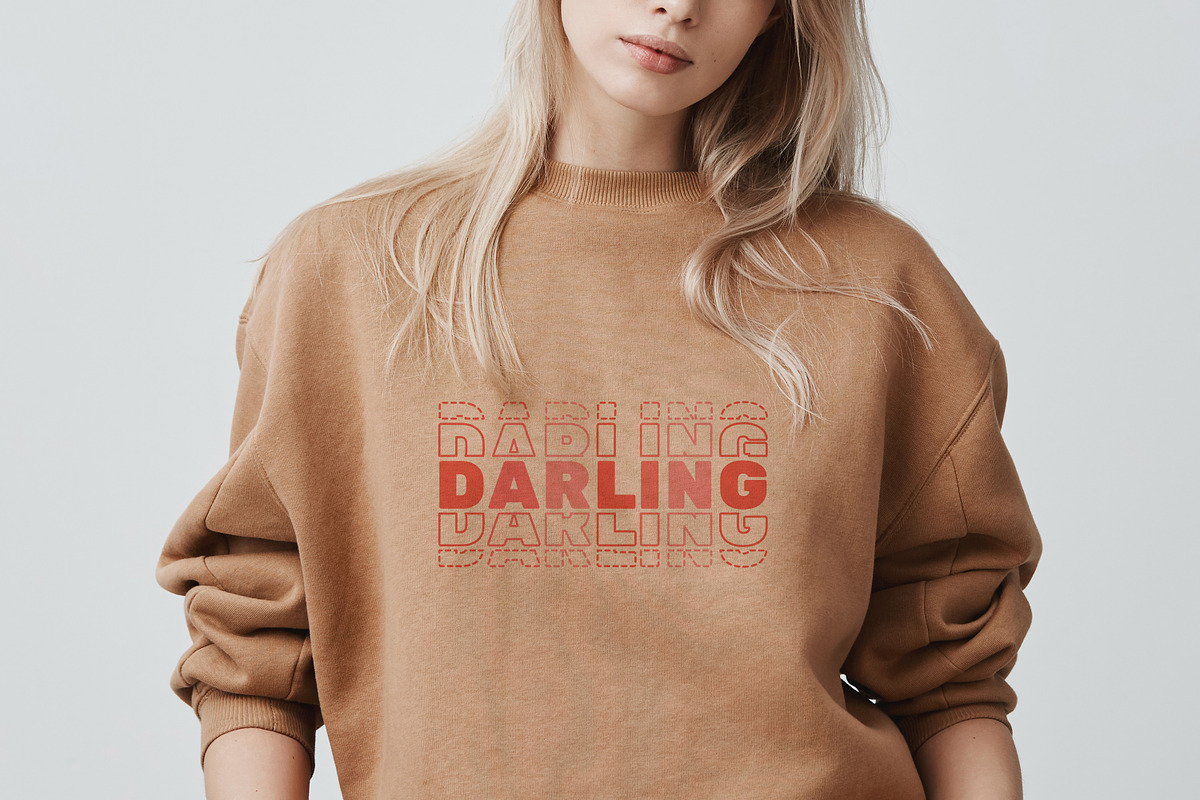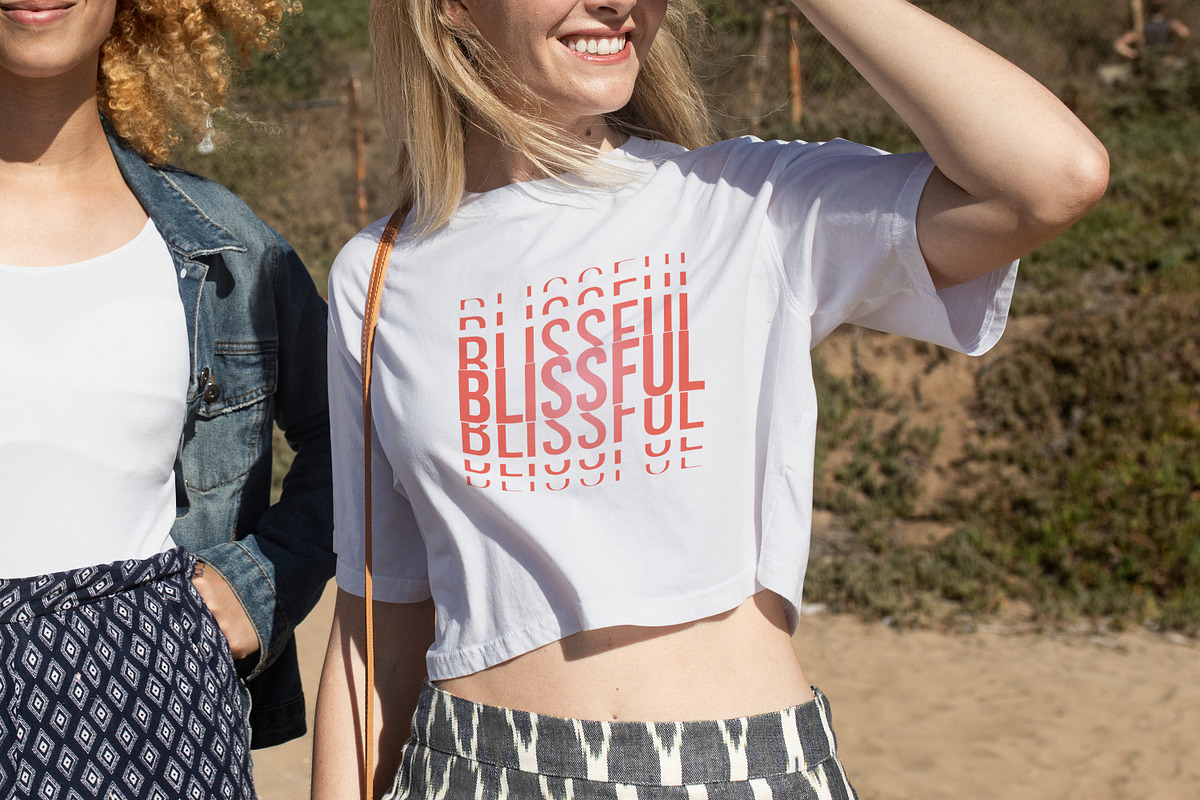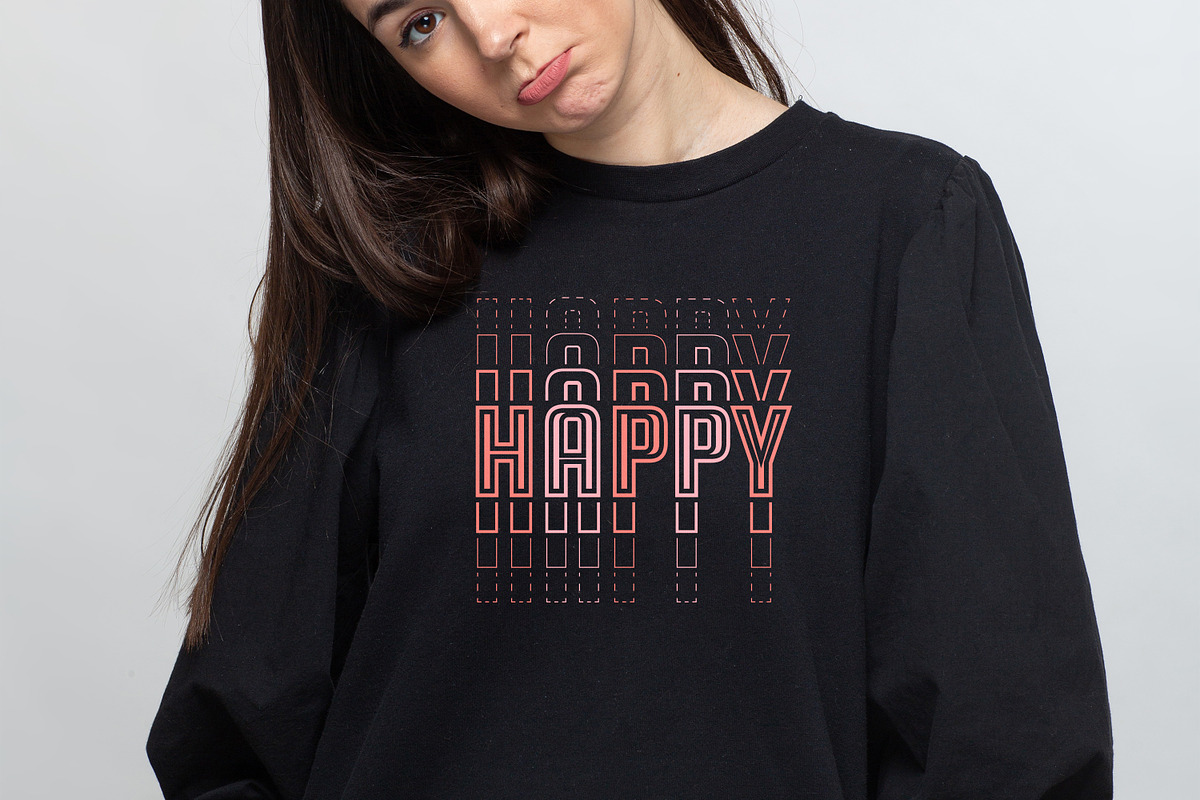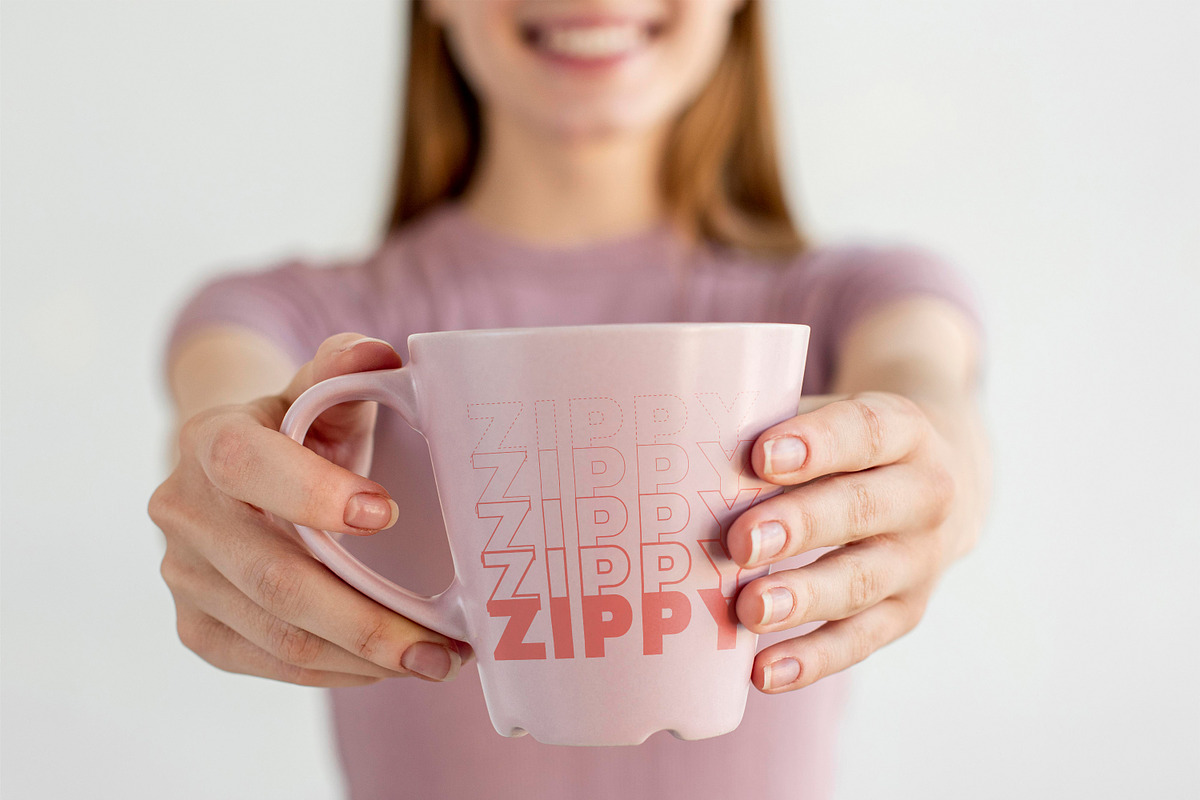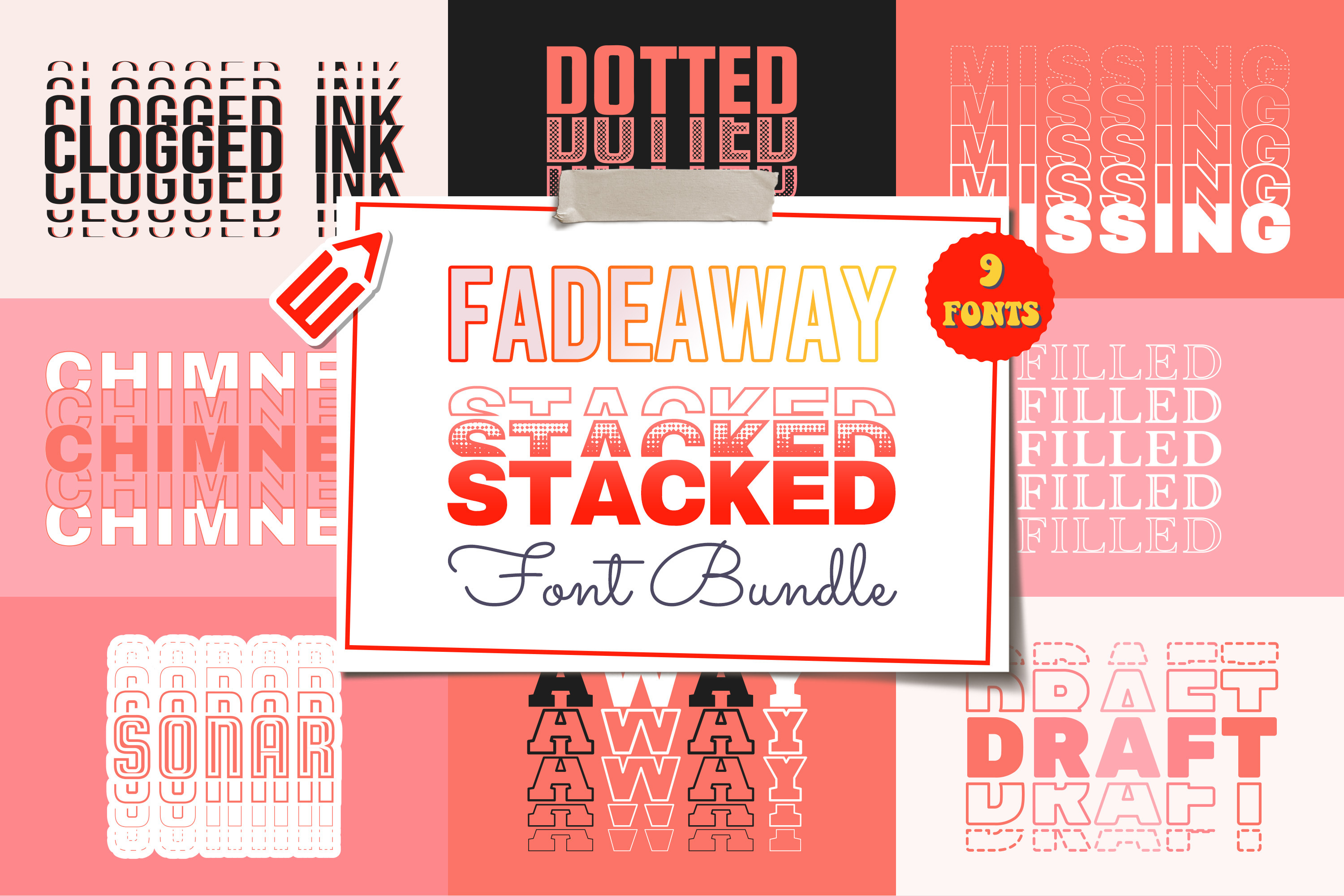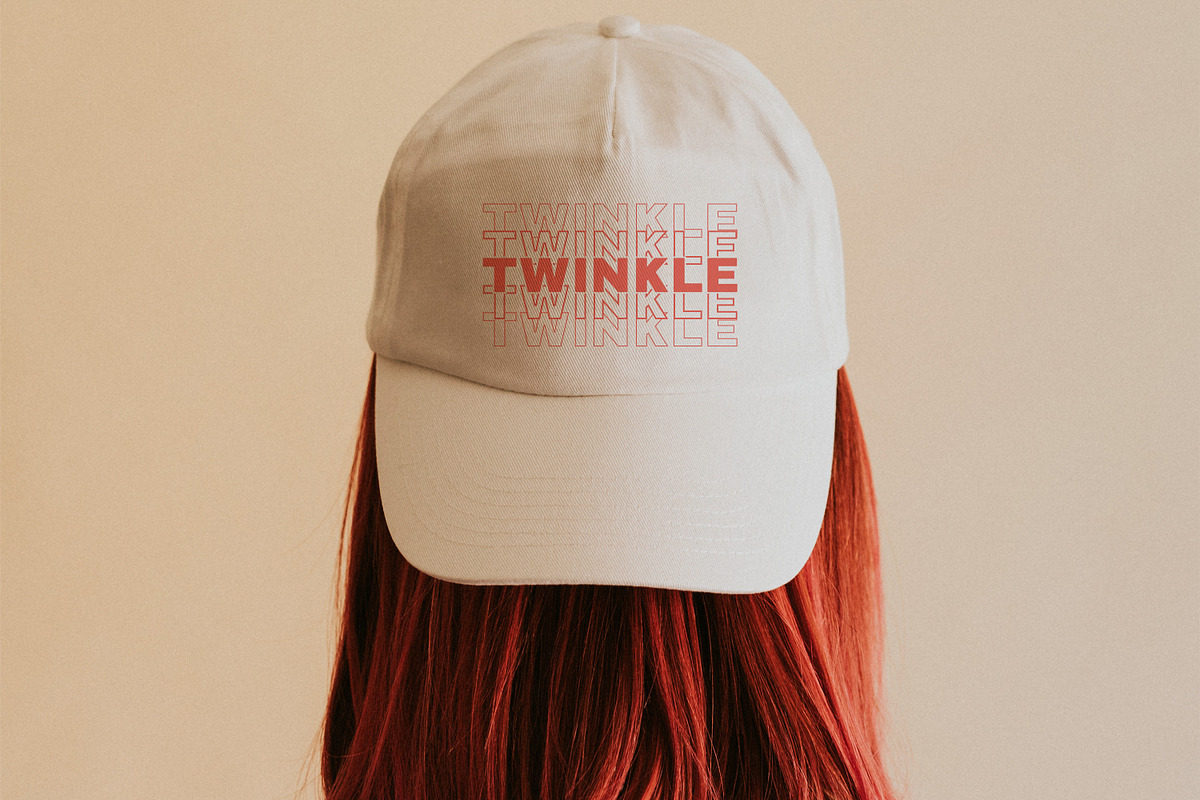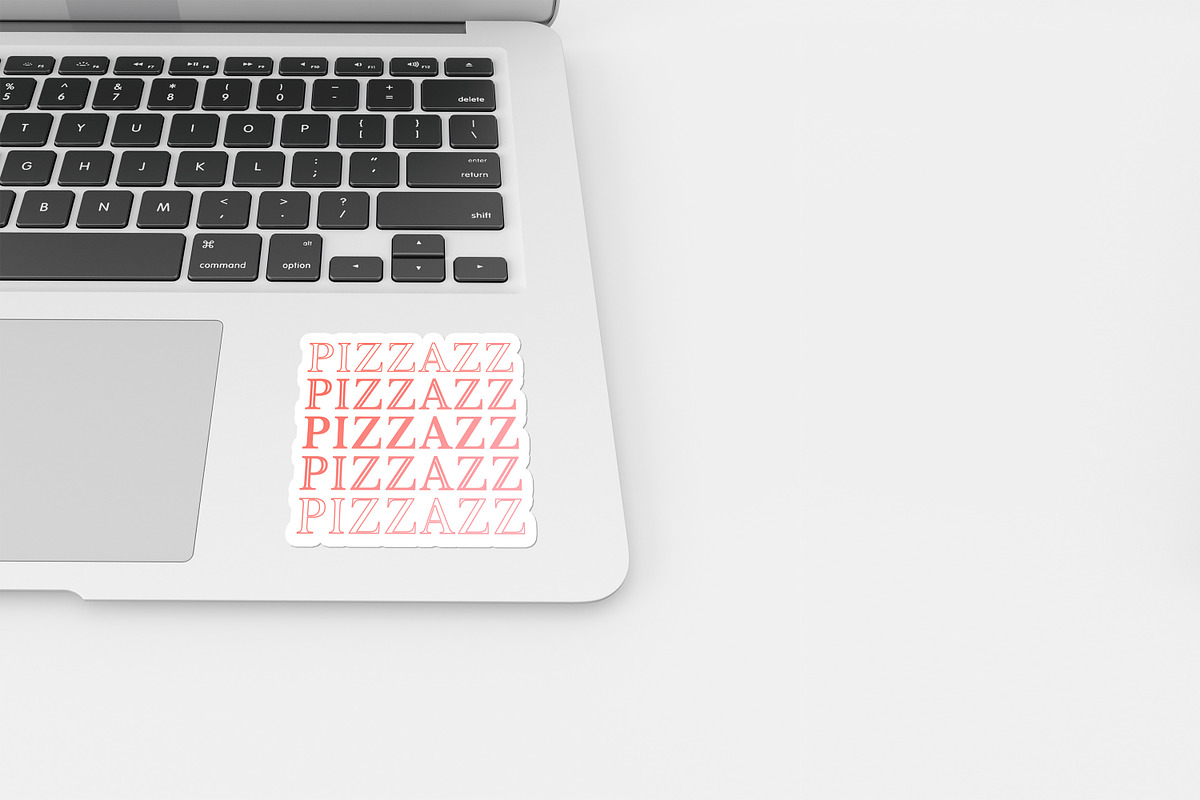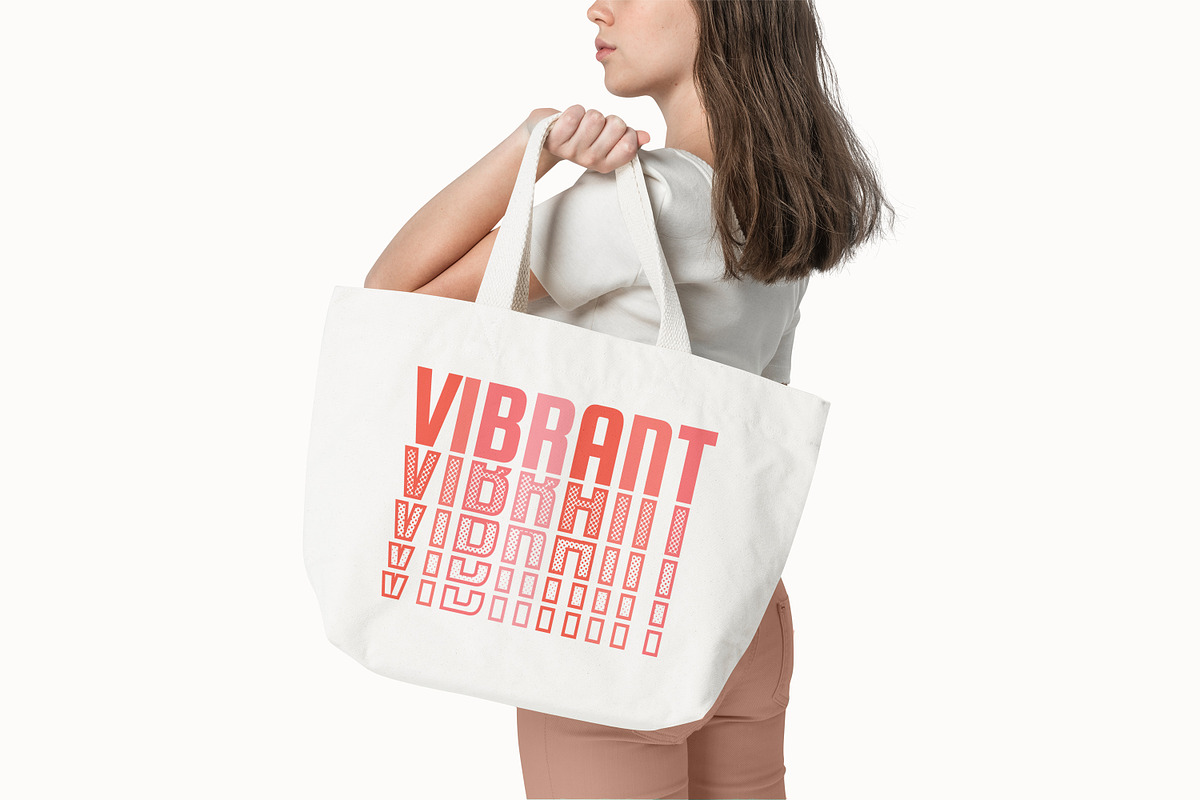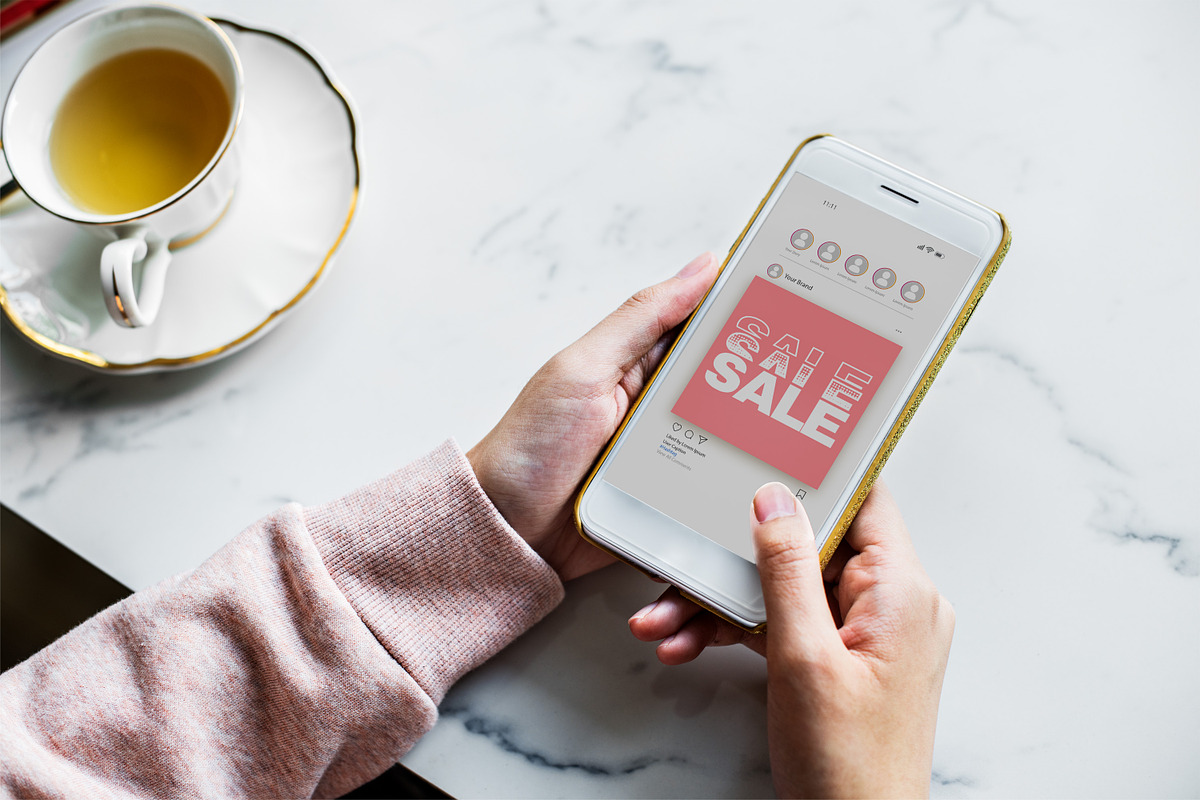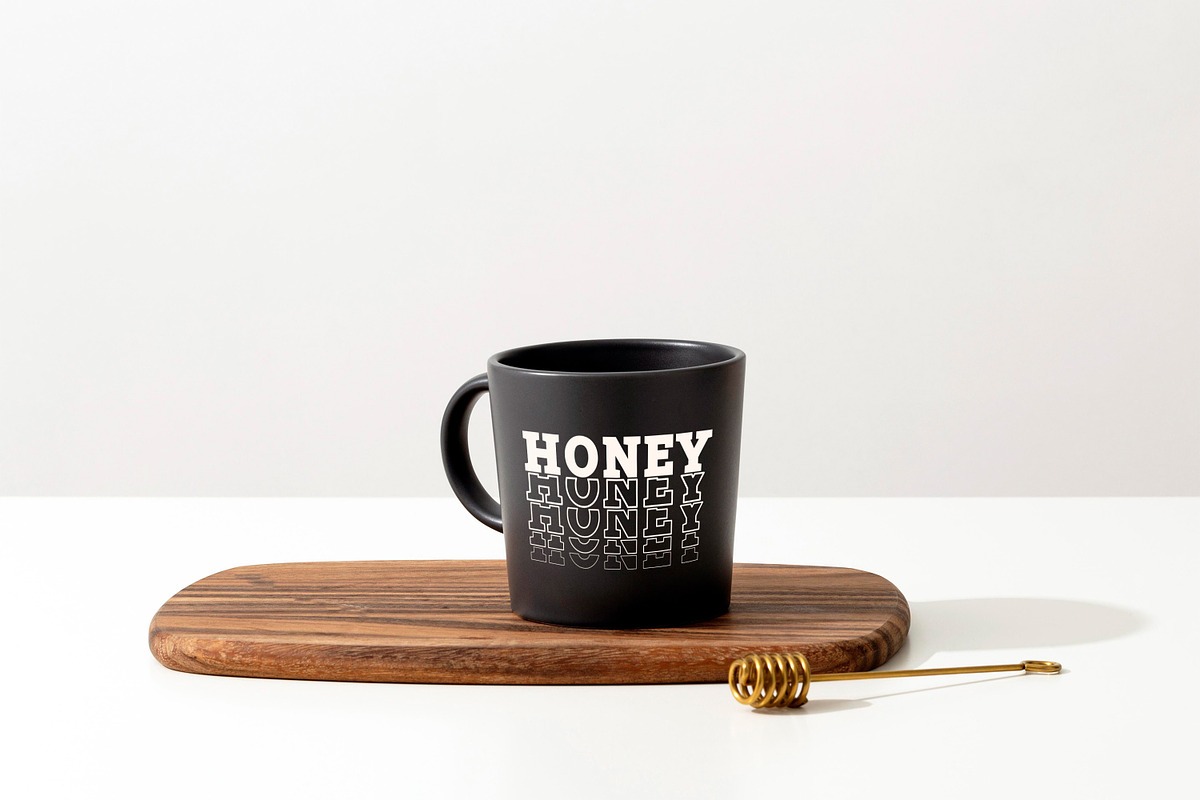
Fadeaway Stacked Font Bundle
Fadeaway Stacked Font Bundle is here with an incredible selection of 9 stacked fonts. A versatile collection that brings a gradual shift from light to heavy text, adding a captivating depth to your designs! This extraordinary bundle features Fadeaway Fonts designed to seamlessly transition from delicate, ethereal characters to bold and impactful letterforms. With this bundle, you can effortlessly create eye-catching typography, captivating logos, and striking headlines. Embrace the artistry of subtlety as your text gracefully evolves from a gentle whisper to a powerful statement. Whether you're designing elegant invitations, stylish branding, or attention-grabbing posters, our Fadeaway Stacked Font Bundle will elevate your creations with its dynamic and gradual fade effect. Unlock the power of graceful progression with our Fadeaway Stacked Font Bundle - where text seamlessly transitions from light to heavy, leaving a lasting impression.